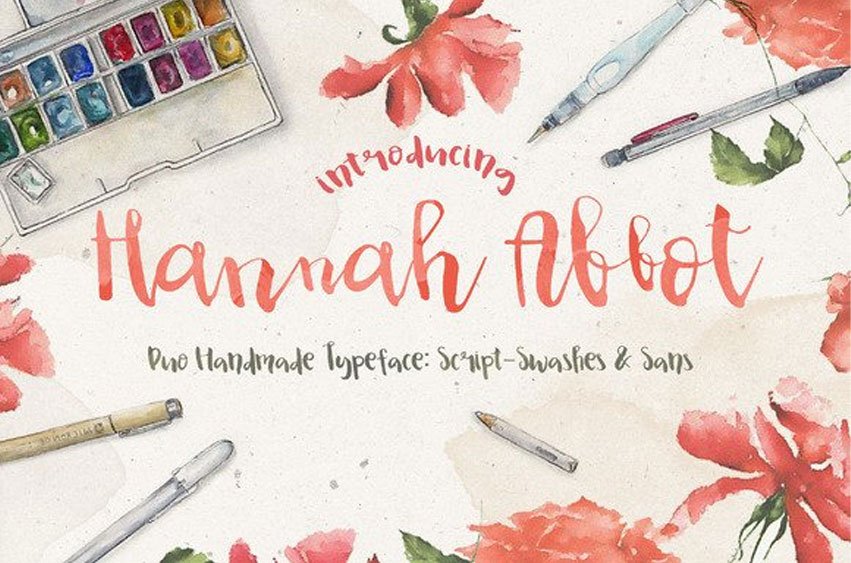
Hannah Abbot Font is a duo feminine typeface which consists of Hannah Abbot Script with swashes and Hannah Abbot Sans.
The font is created with a hand lettering brush style.